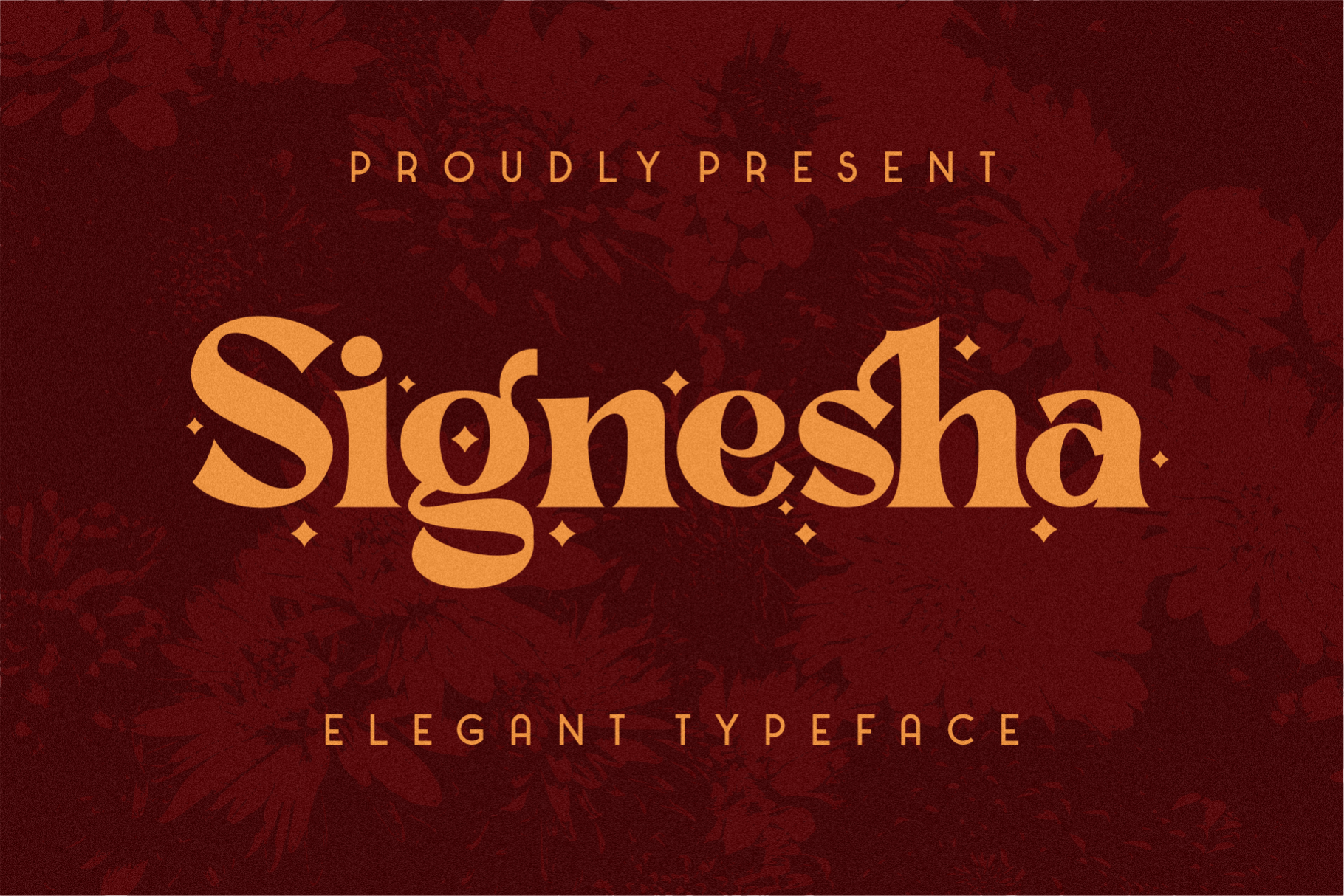
Signesha Elegant Typeface
Signesha is an elegant typeface font suitable for logos, fashion, master signs, headlines, and other designs. This font supports multilingual, ligature and alternate languages.